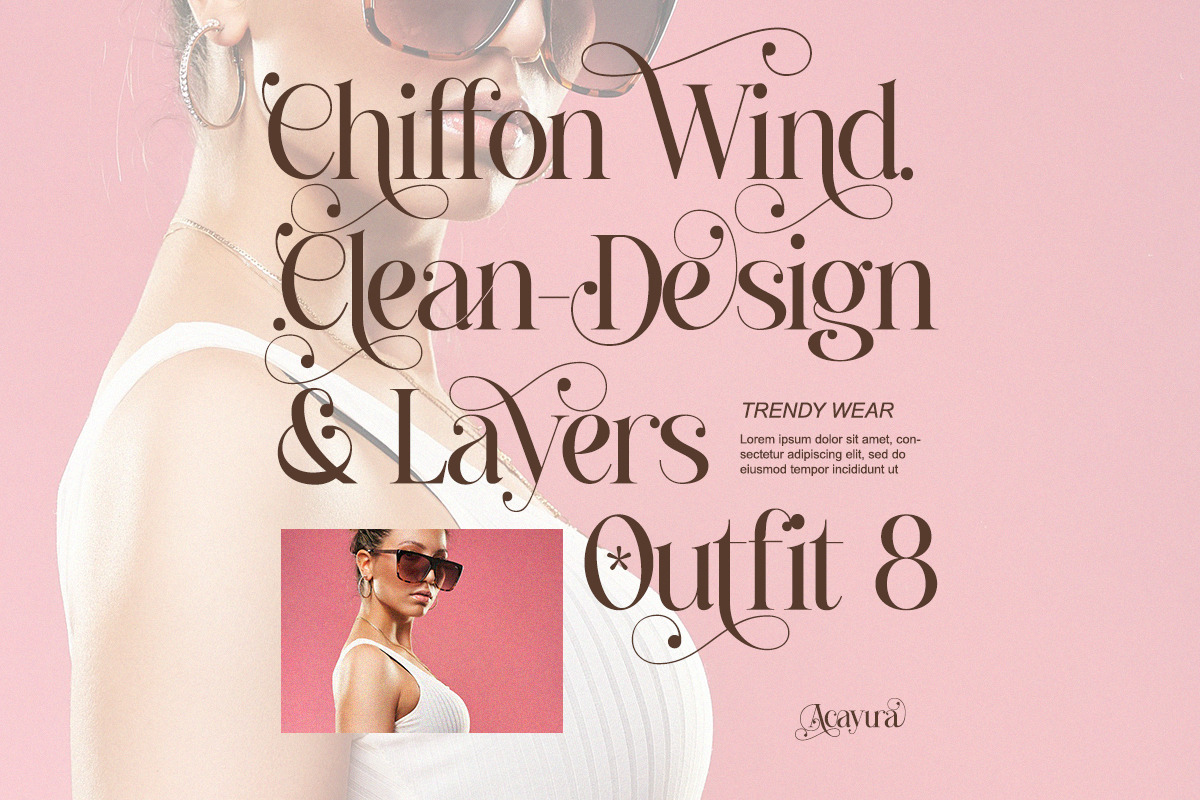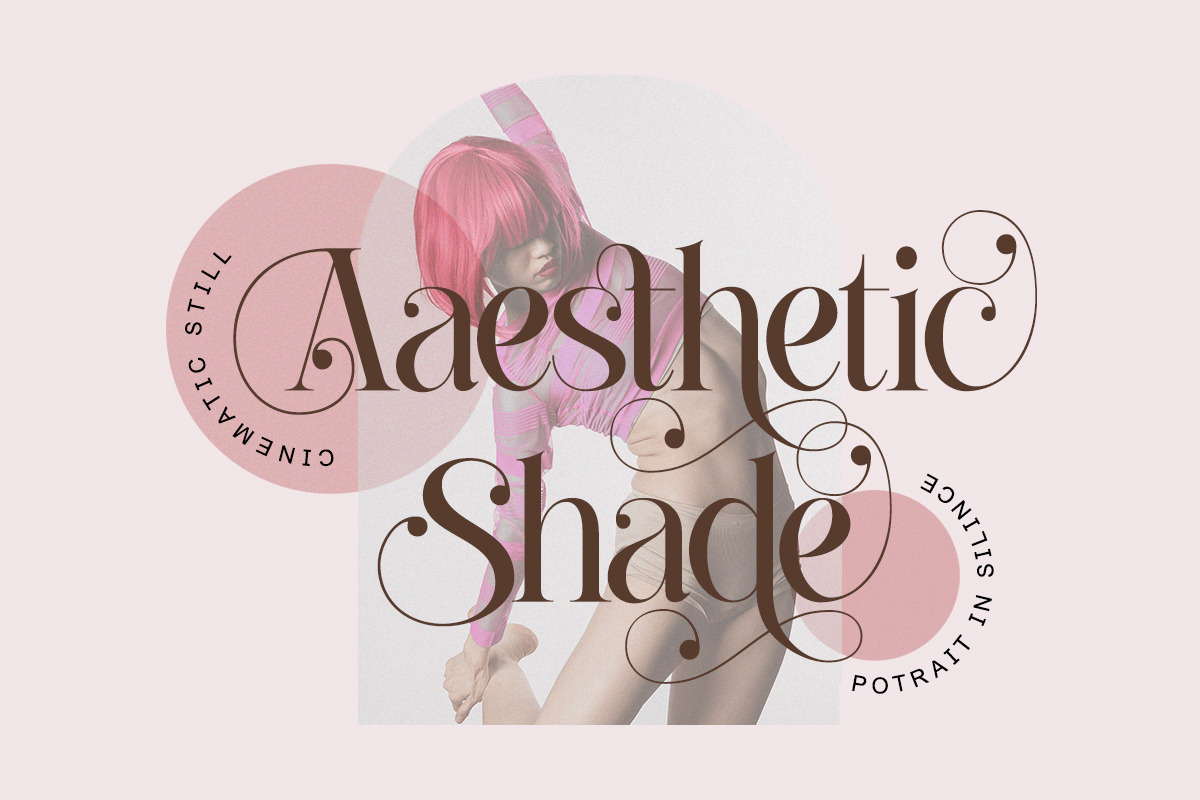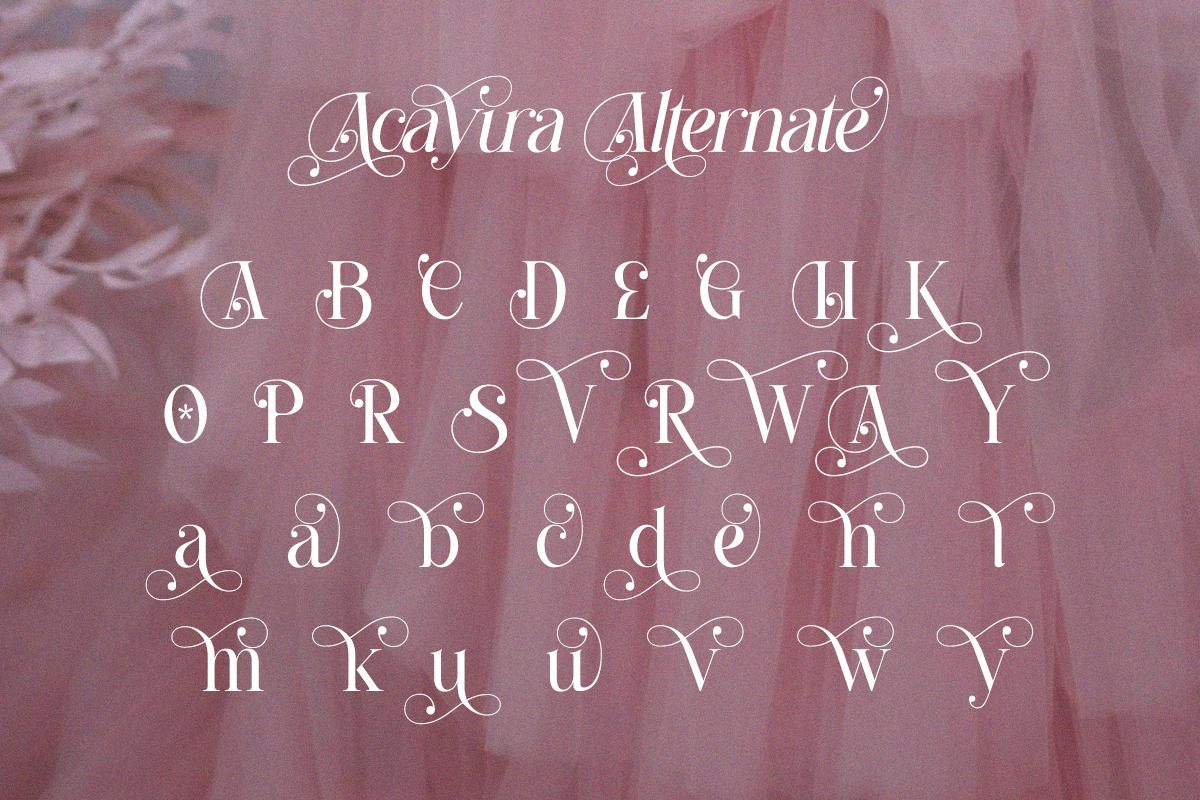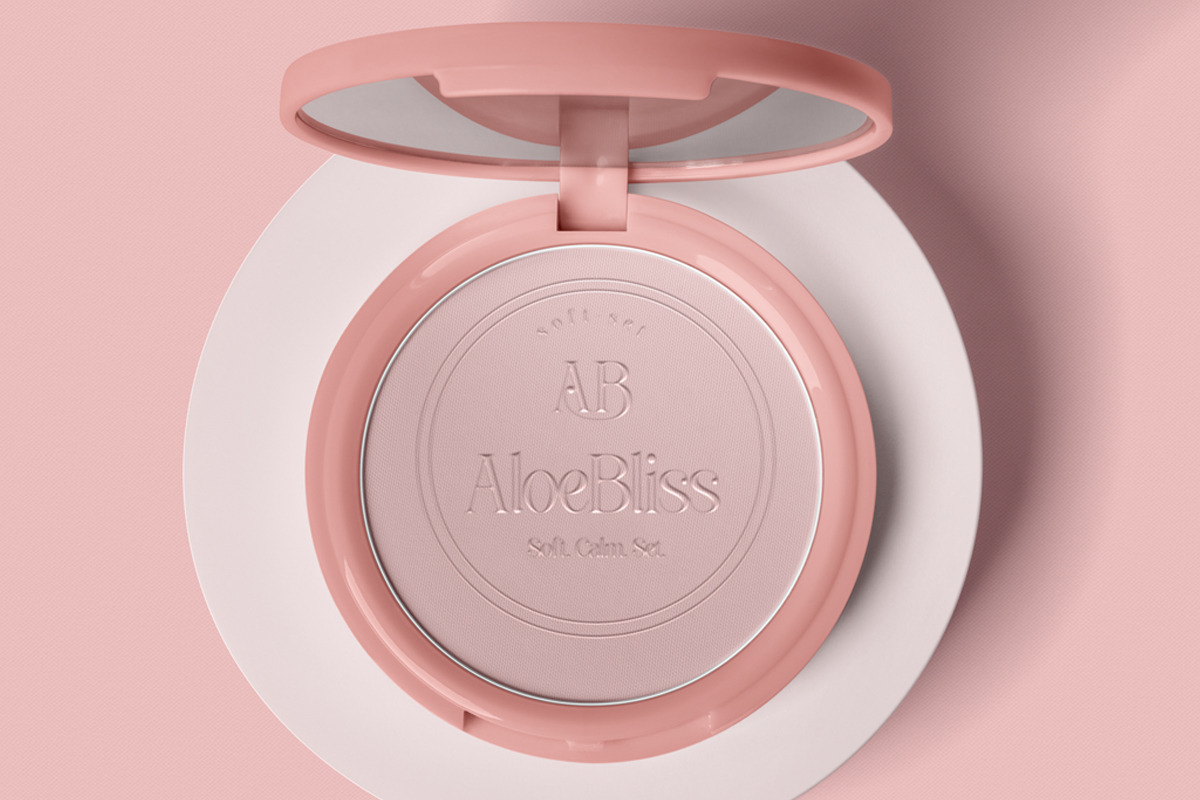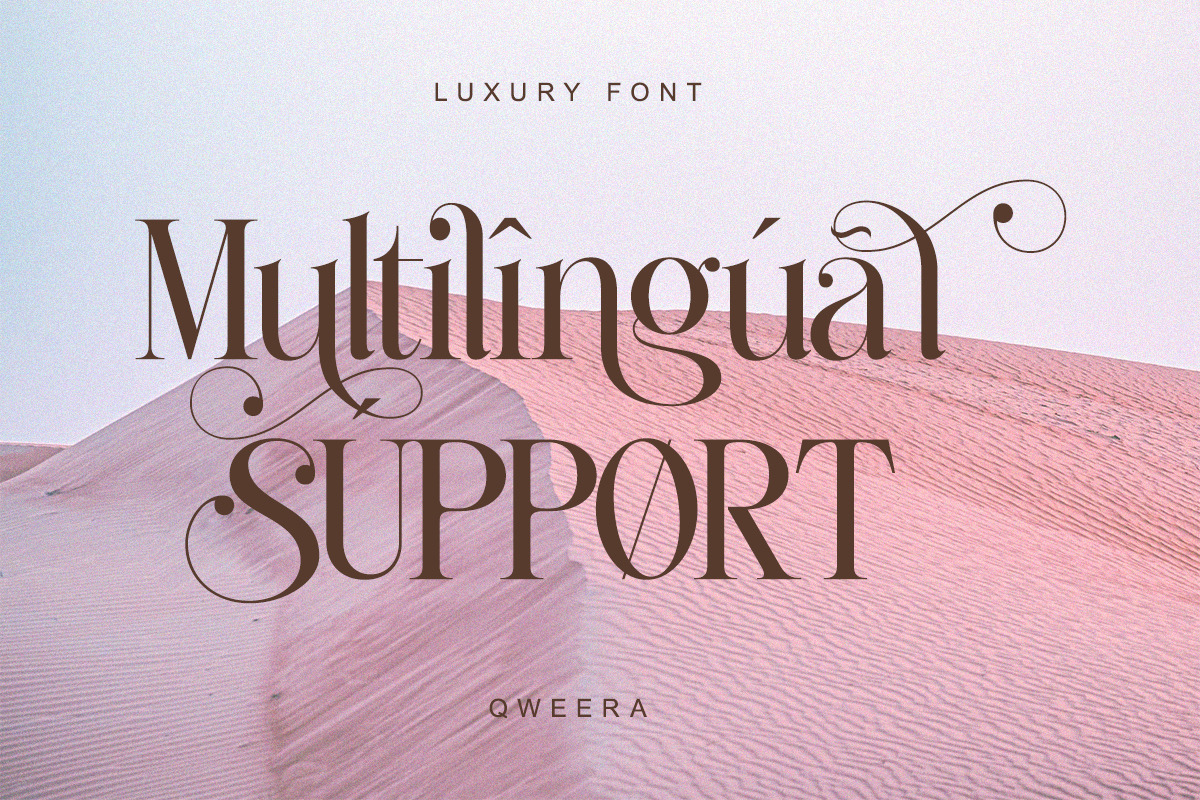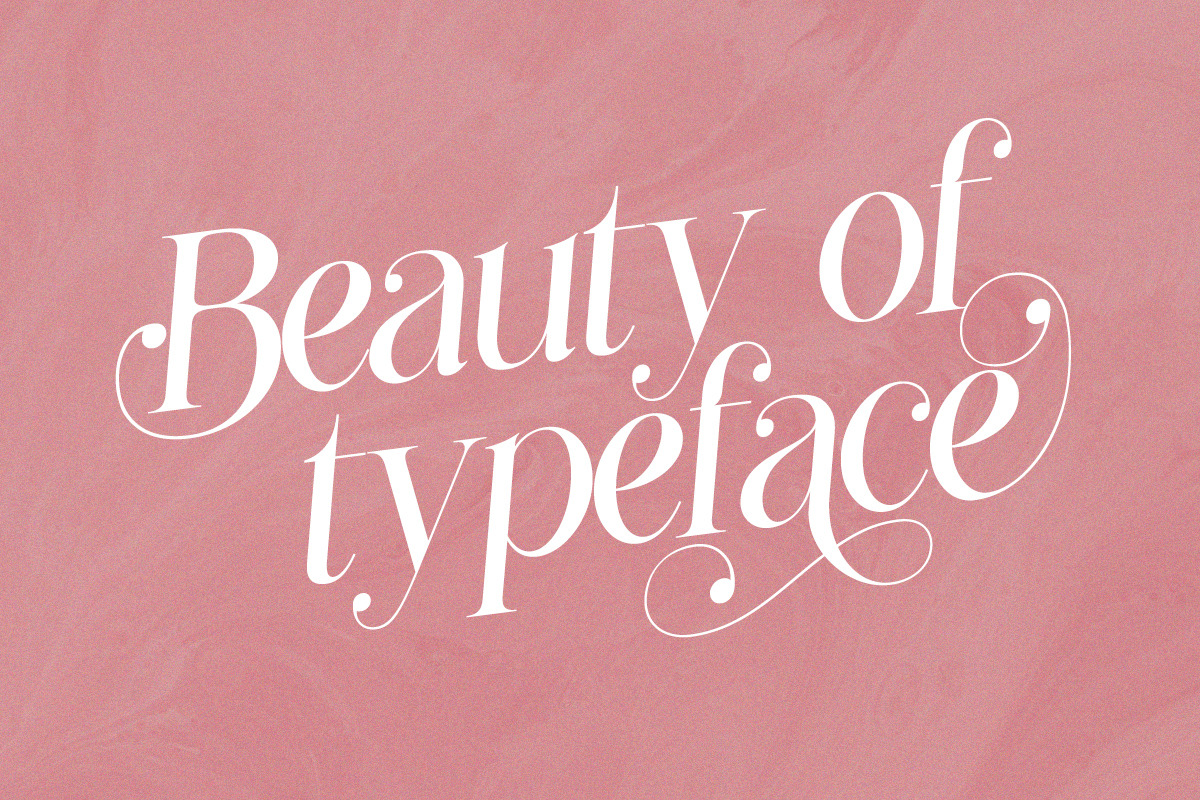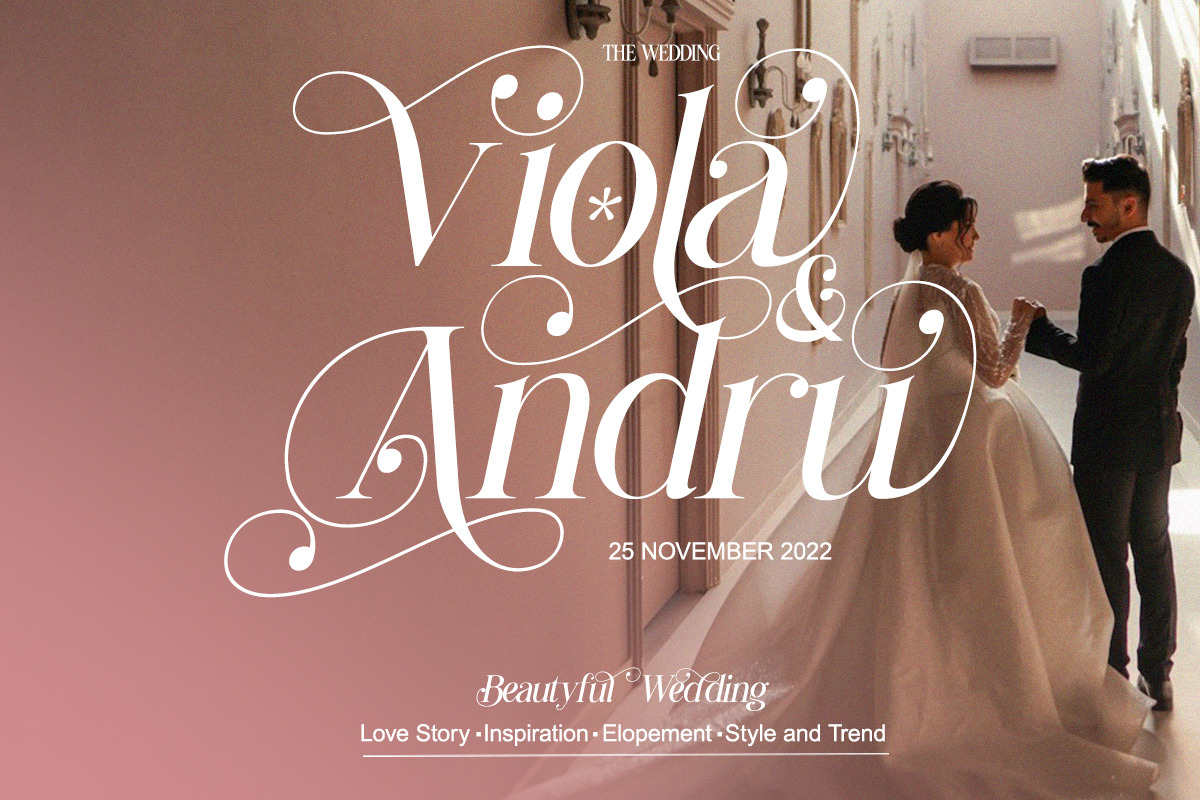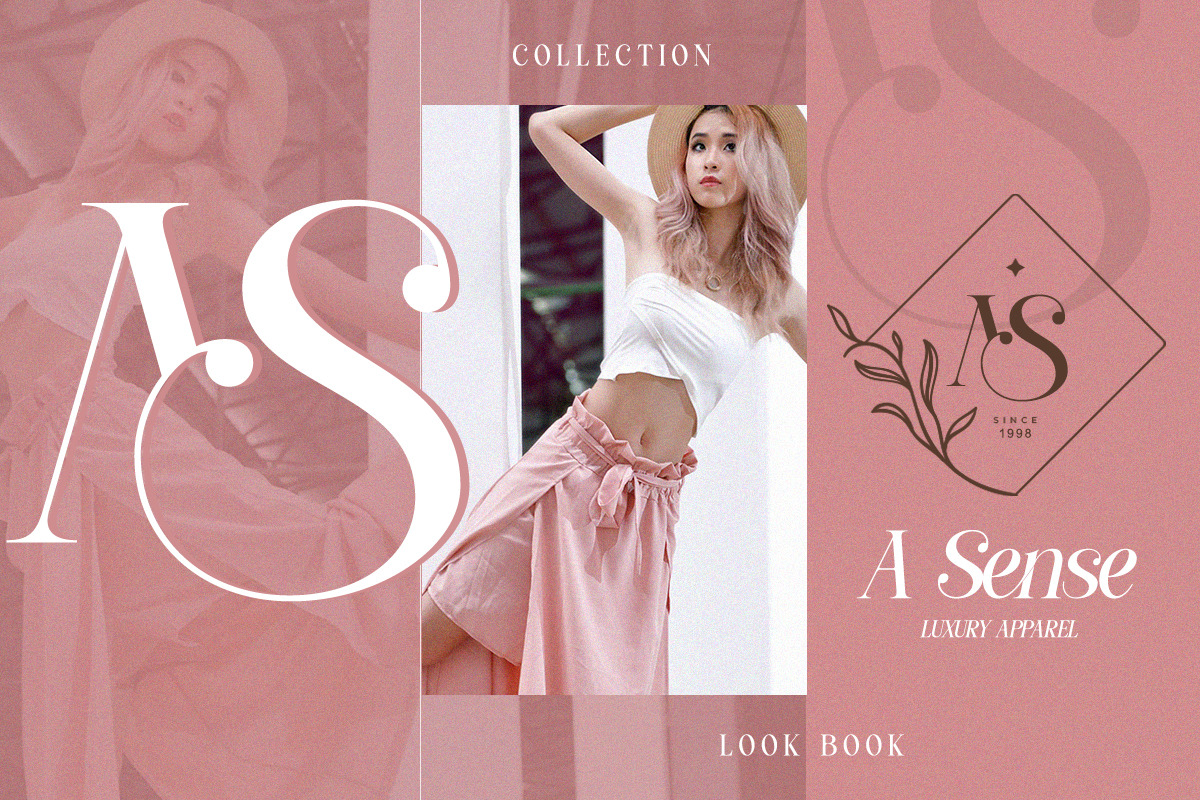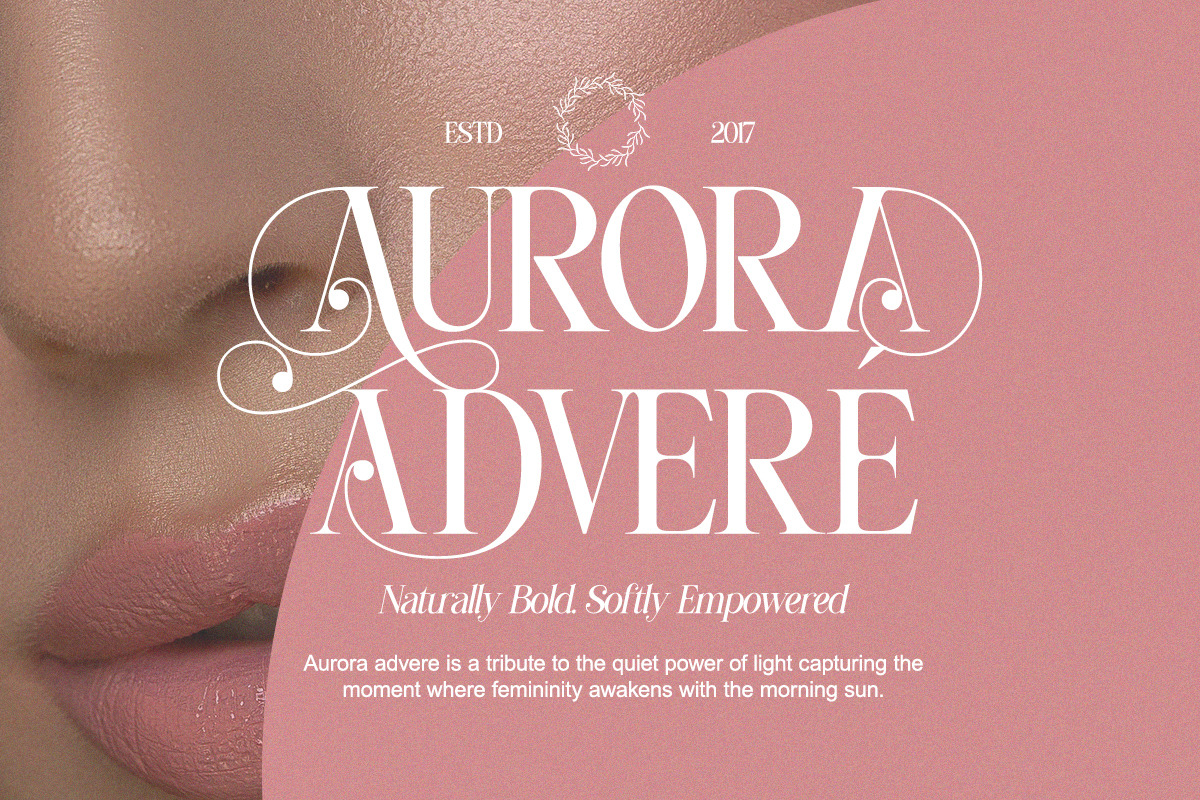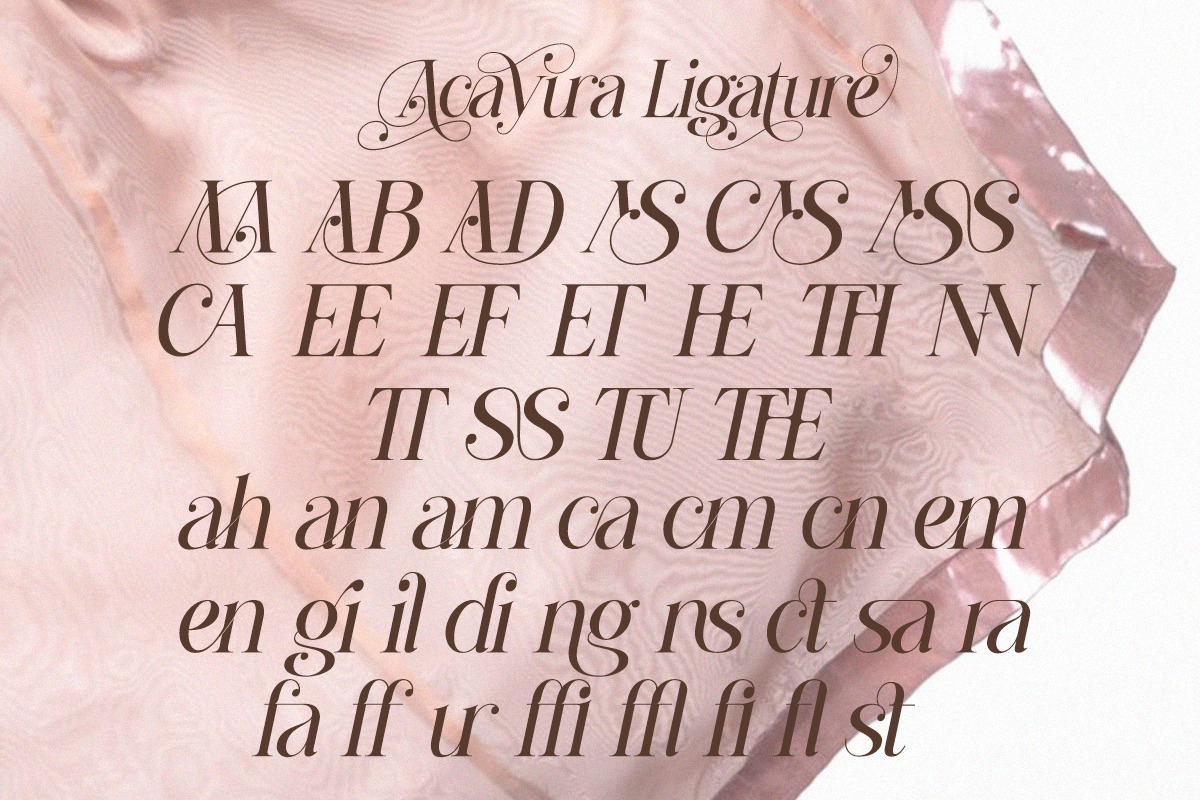
Acayura - Modern Elegant Luxury
Acayura is a refined modern serif font designed with timeless elegance and luxury in mind.
Crafted with delicate curves, stylish swashes, and versatile alternates, Acayura elevates every project into a high-class masterpiece. Its graceful ligatures make it stand out as the perfect serif font for branding, editorials, invitations, logos, and luxury packaging. Whether you’re creating wedding stationery or fashion campaigns, Acayura gives your design that premium, unforgettable touch.
- Modern elegant serif typeface
- Alternates & stylish ligatures
- Regular & italic versions
- High-end brand logos
- Luxury packaging design
- Wedding invitations & stationery
- Editorials & fashion magazines
- Social media templates
- Elegant product branding
A premium serif that blends modern class with timeless elegance.